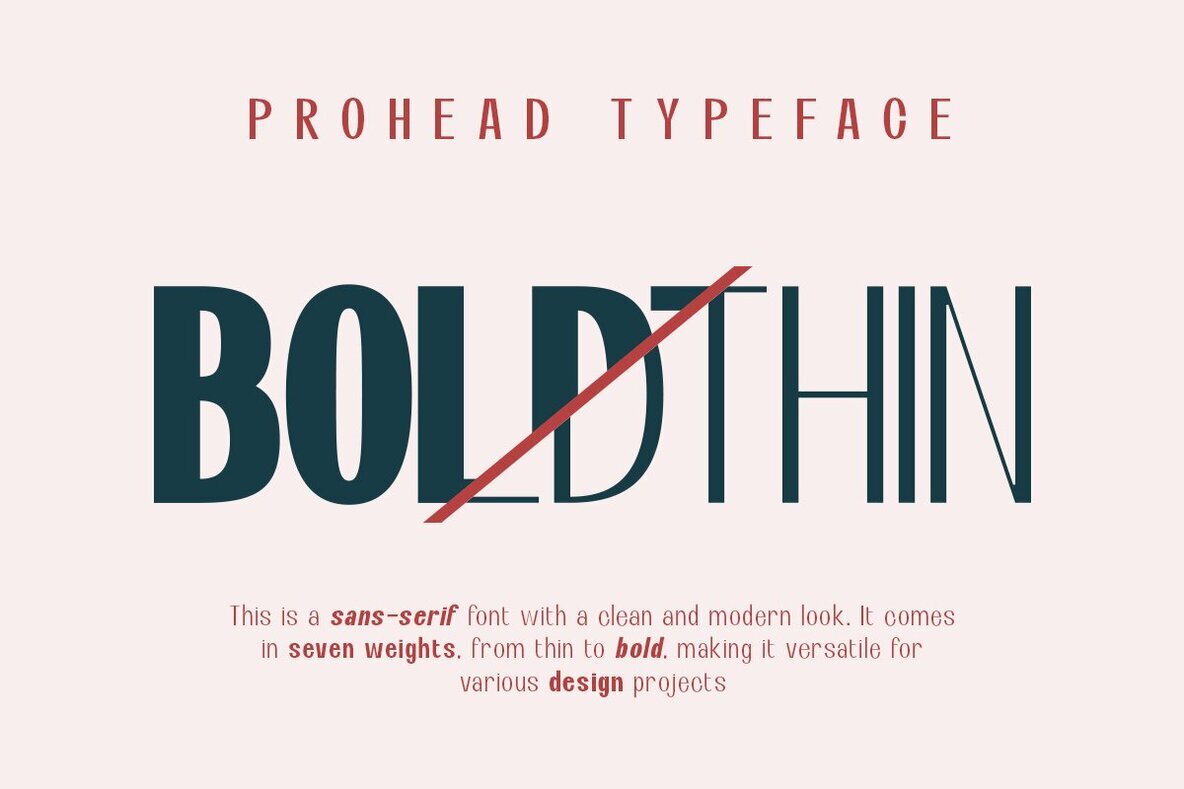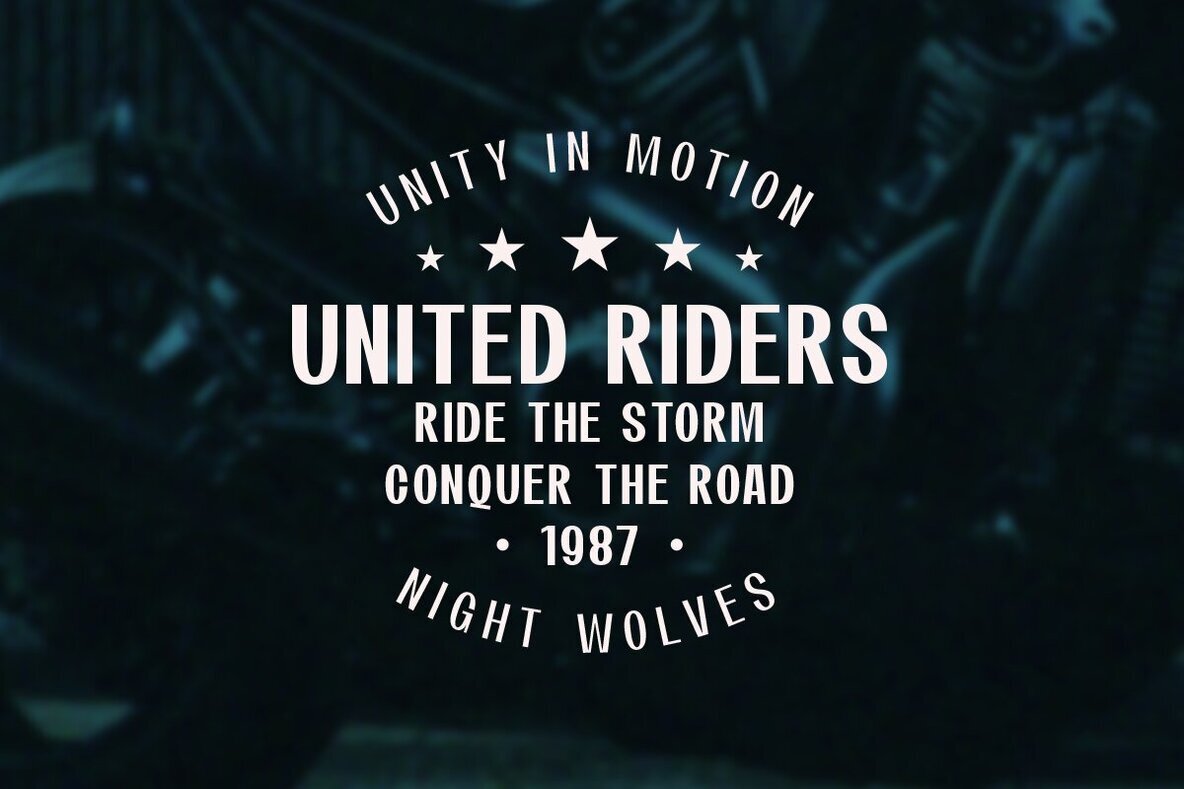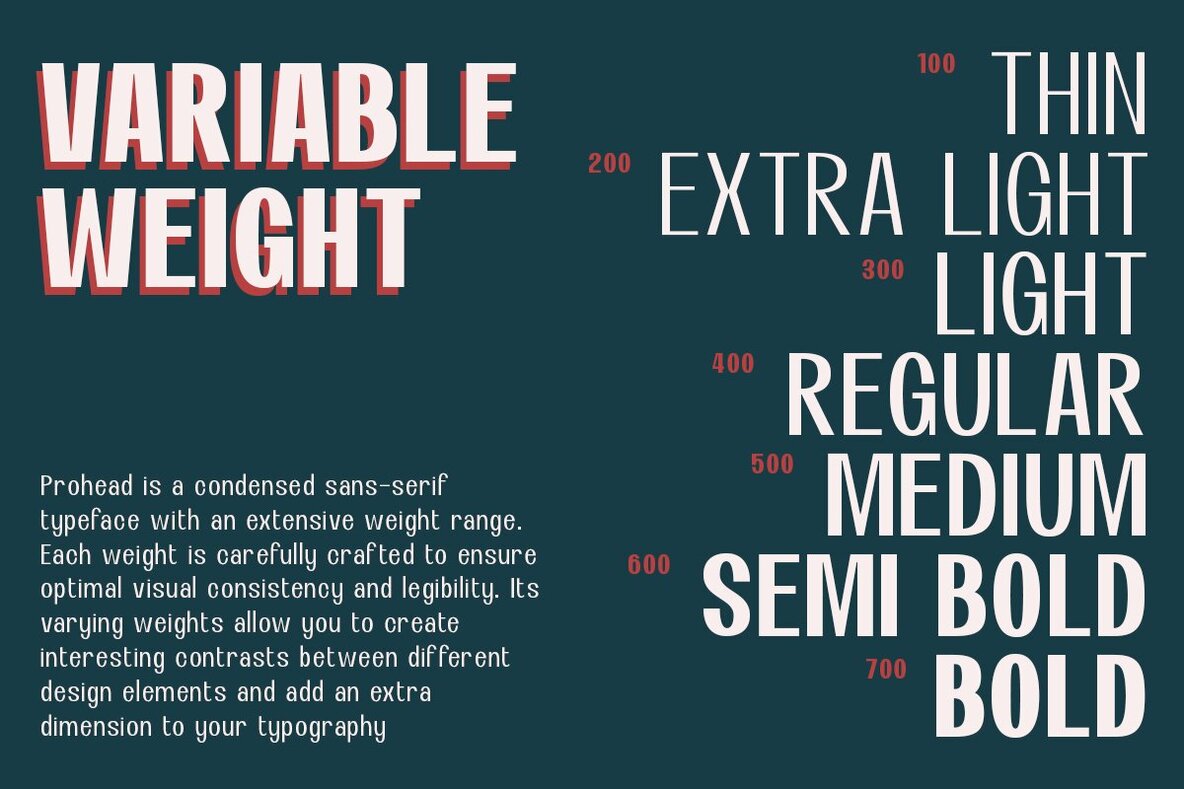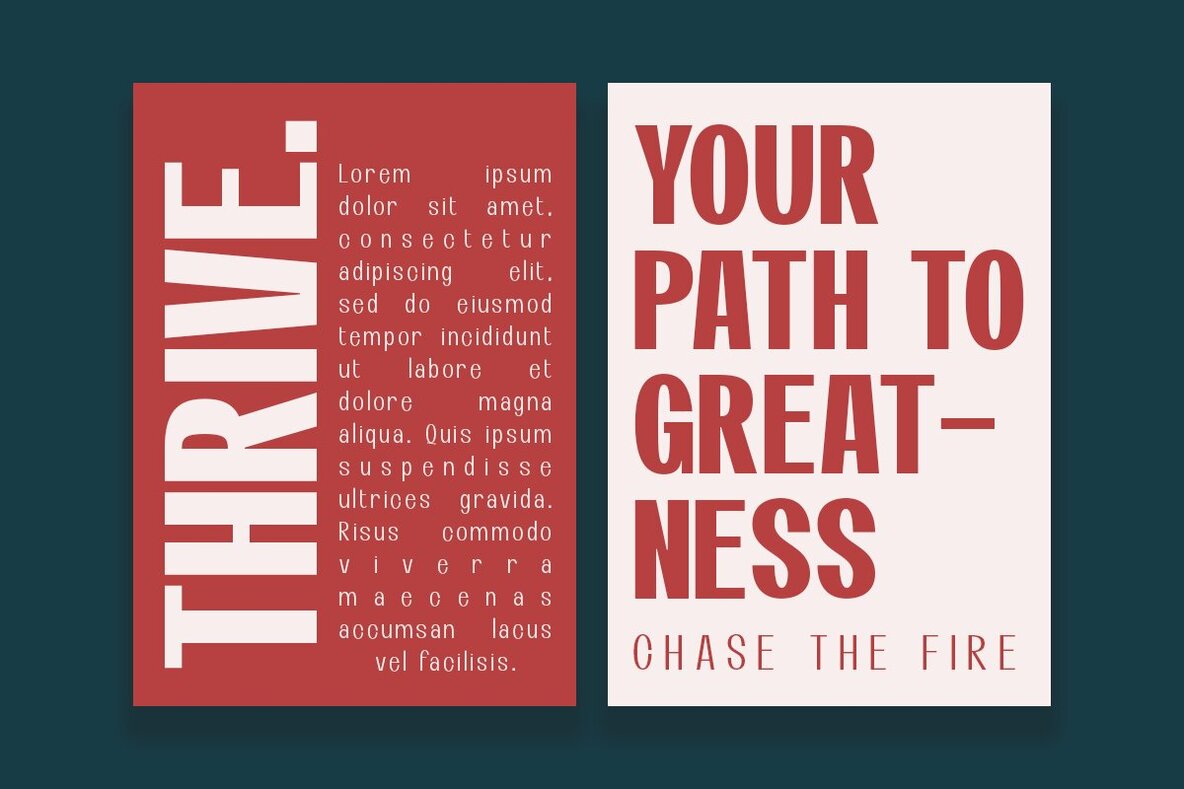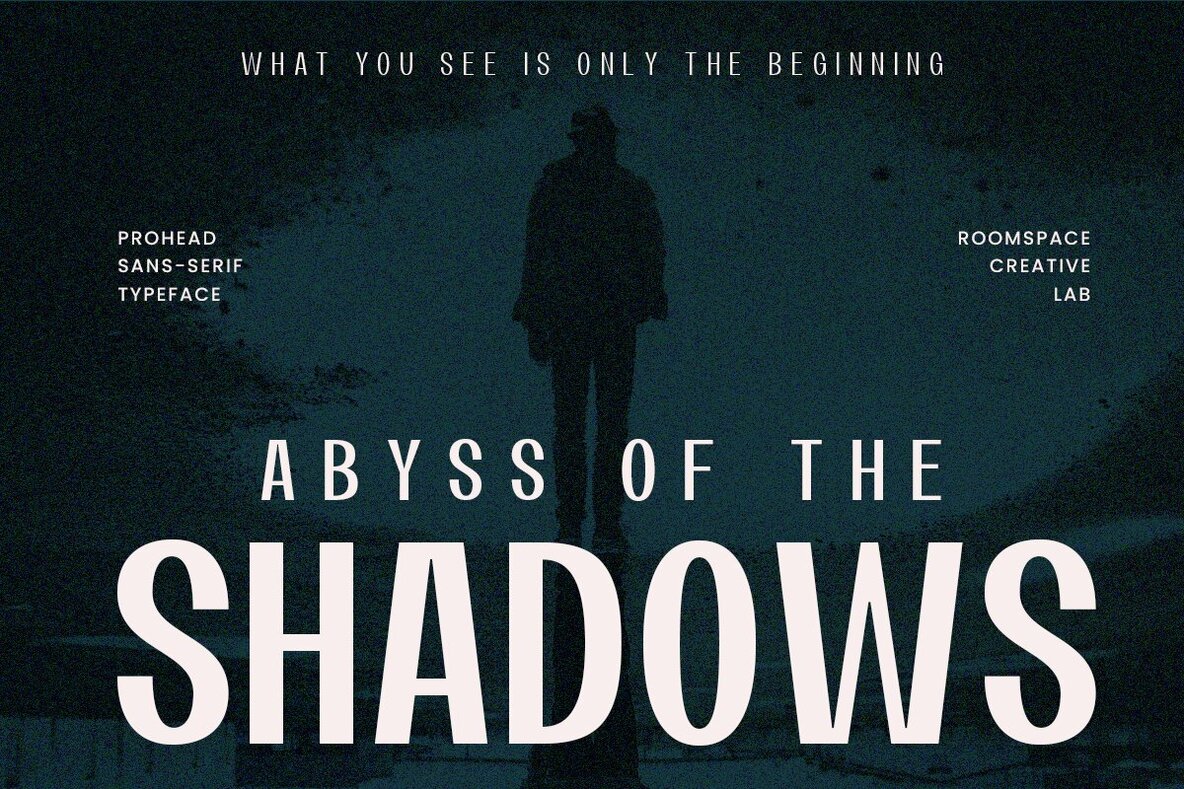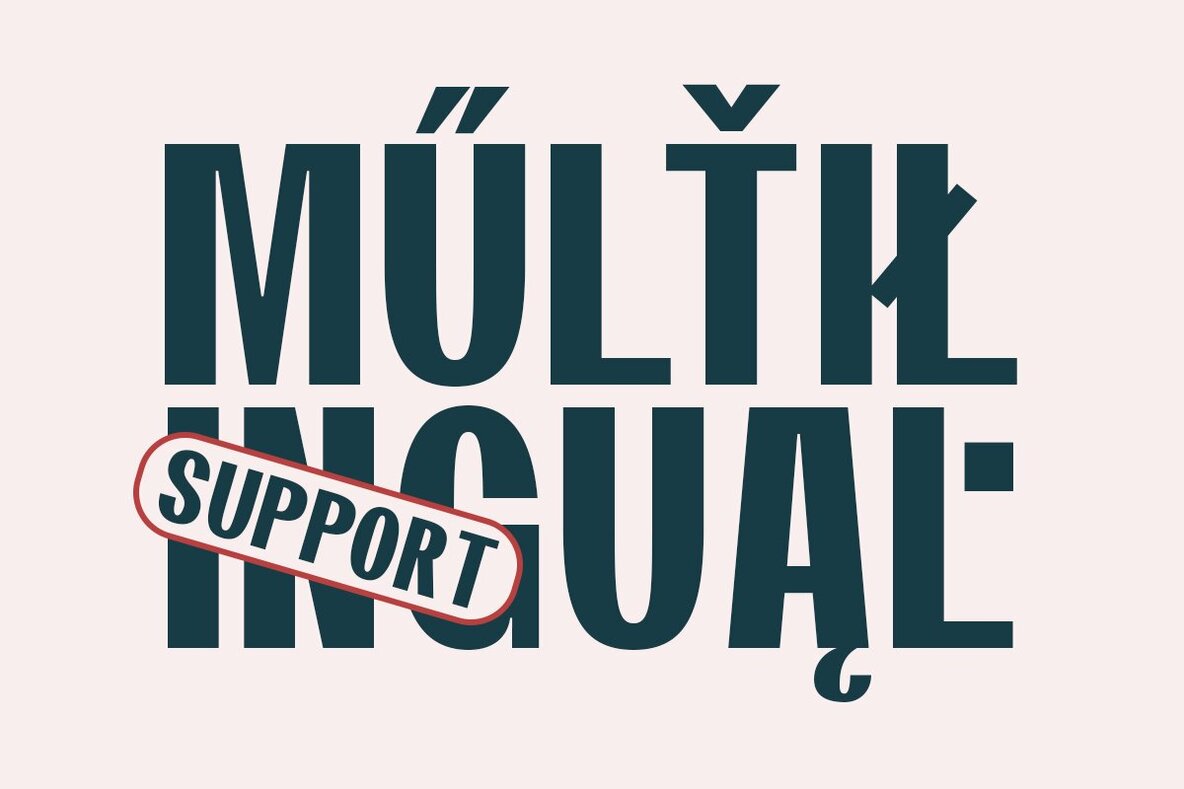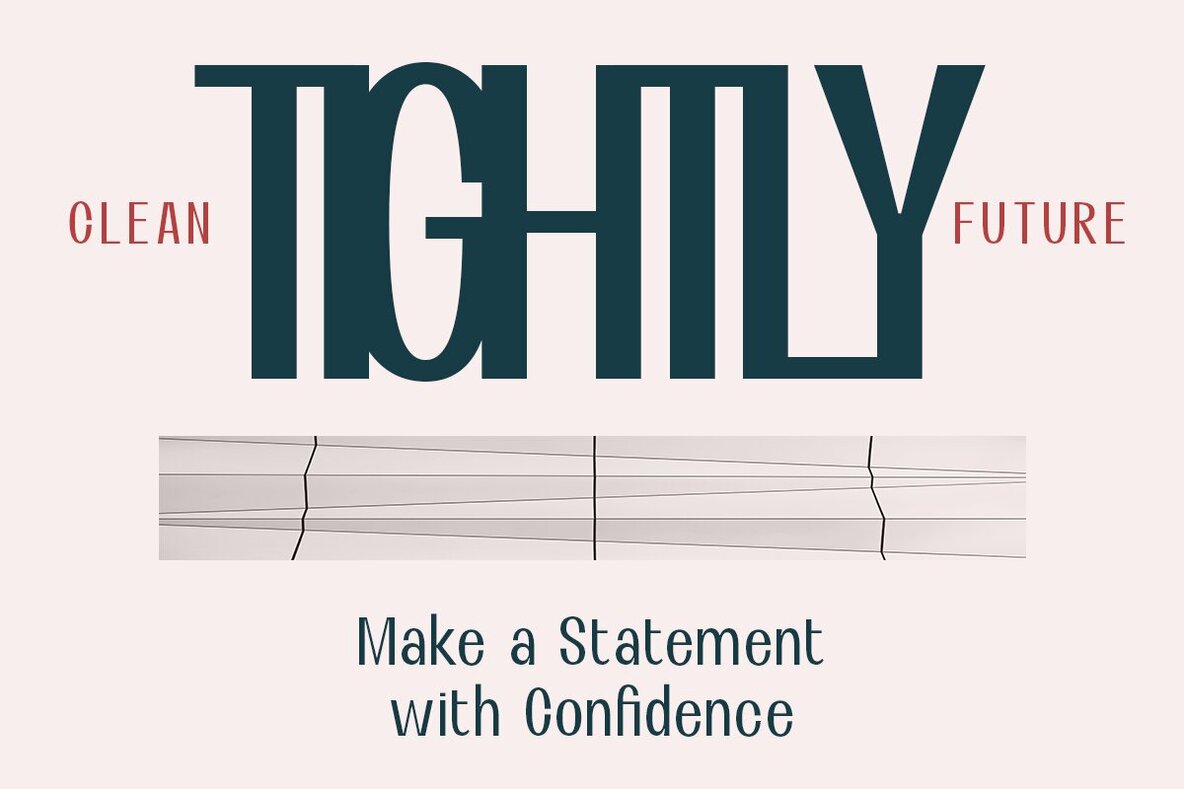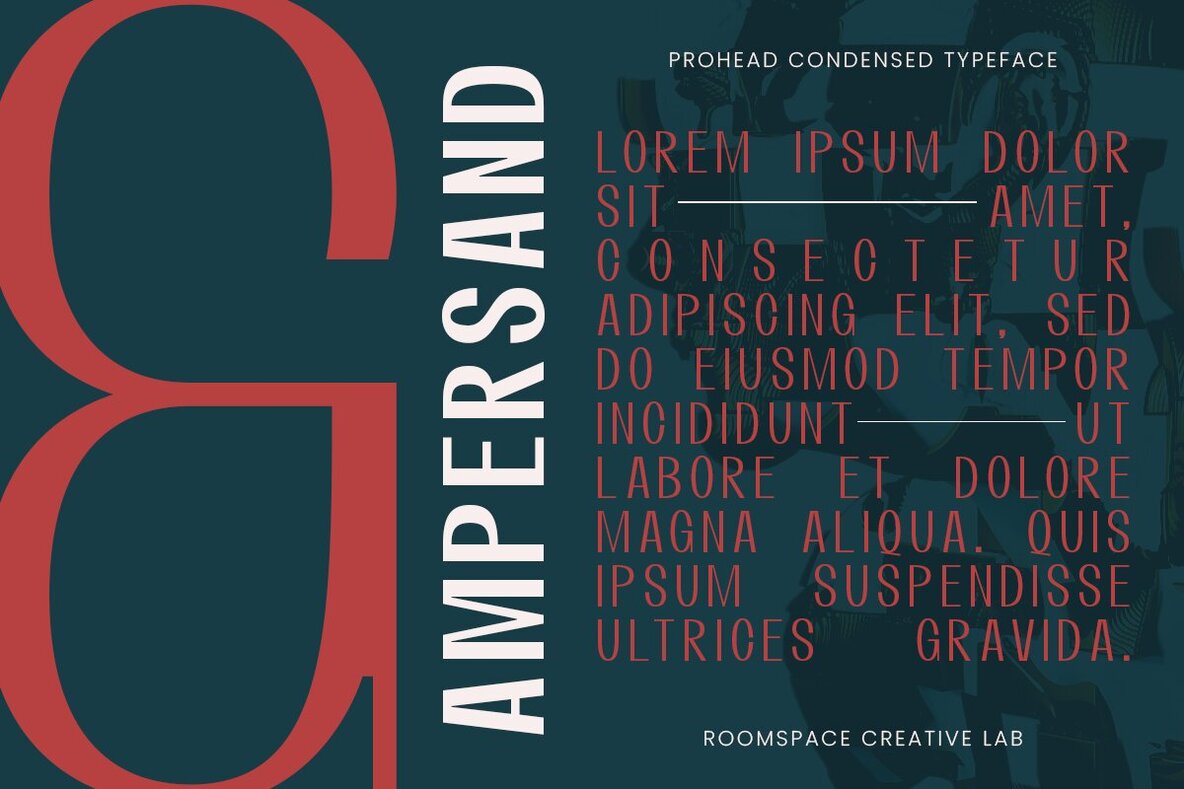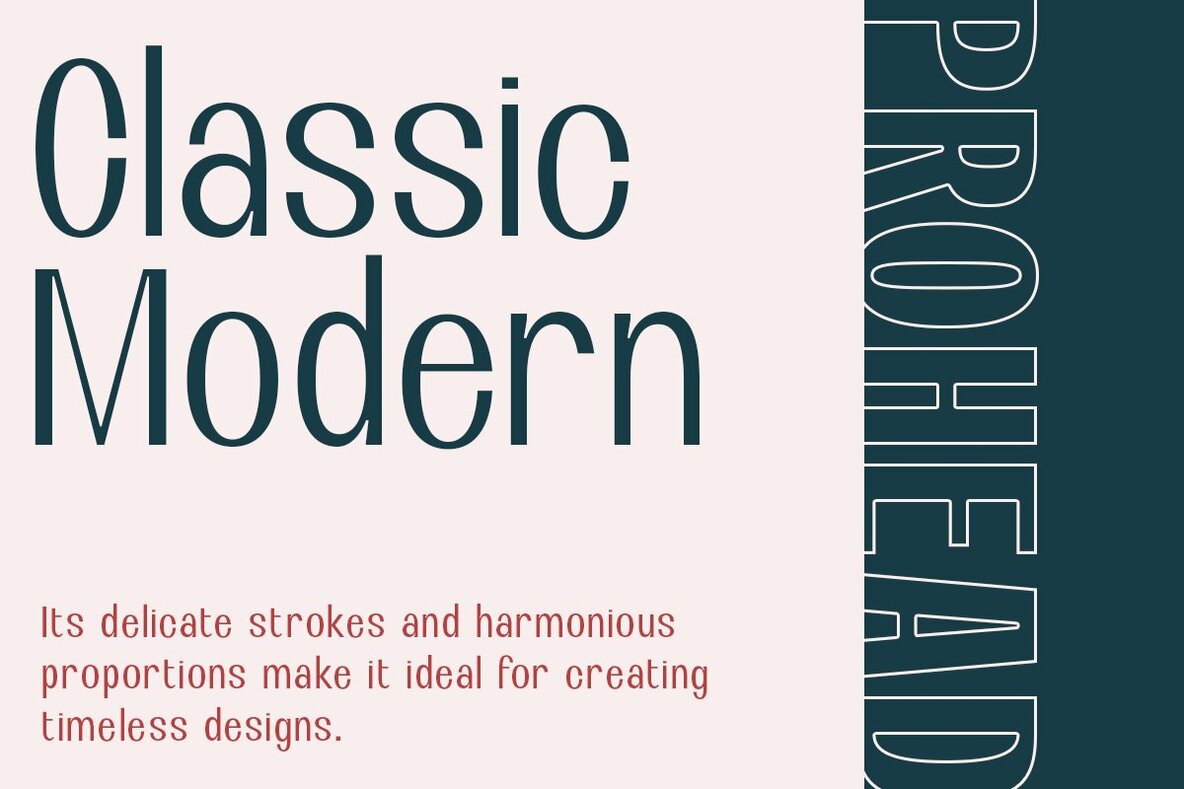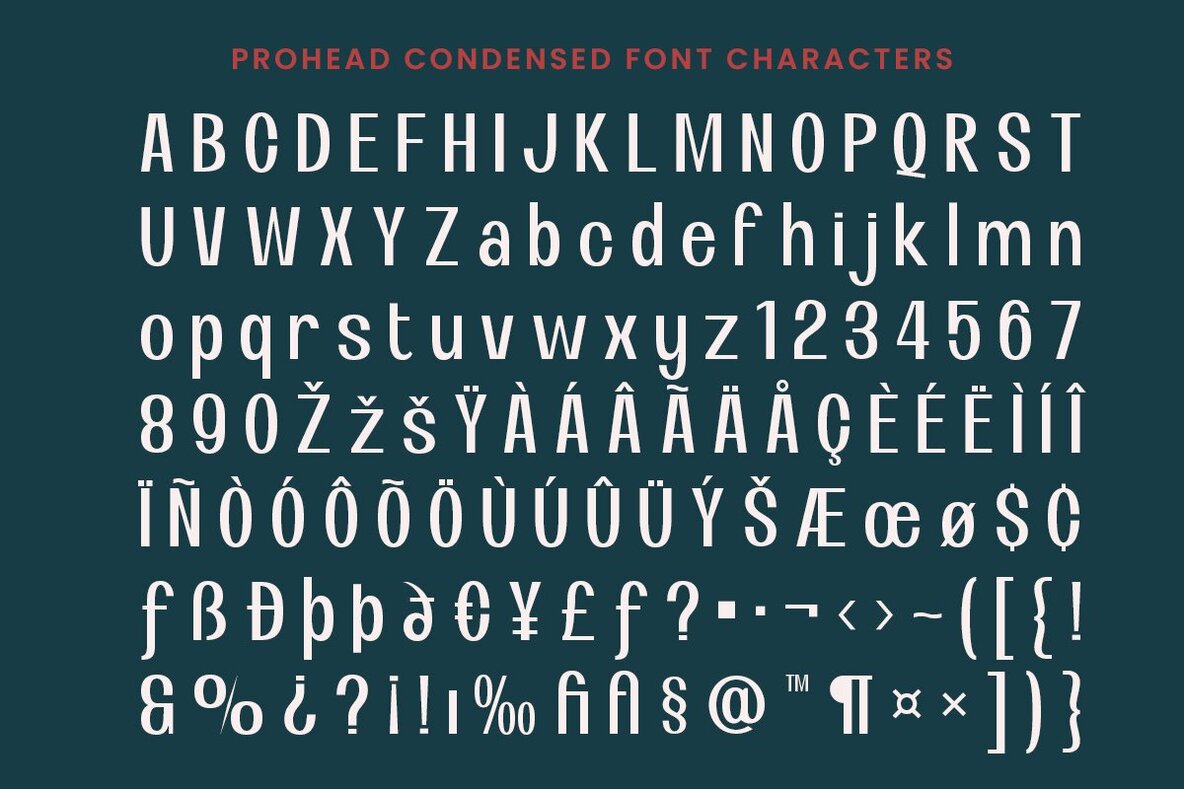
Prohead Font
Prohead modern sans-serif condensed font with 7 versatile weights that blend the elegance of classic design with contemporary trends. Its clean and professional look makes it the perfect choice for logos, branding, web design, packaging, and more. With 7 distinct weights, you have the flexibility to create bold headlines, refined body text, and everything in between. Designed with legibility and style in mind, Prohead adapts seamlessly to any design style, whether you're aiming for a minimalistic aesthetic or a modern classic approach. Features: Don’t miss out on the chance to add this versatile, modern classic font to your collection. Download today and watch your projects transform with elegance and sophistication.